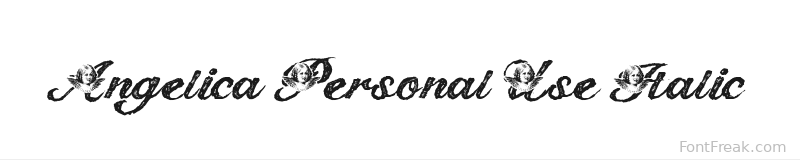
Angelica Personal Use Italic
About Angelica Personal Use Italic
Angelica Personal Use Italic is a beautifully crafted script font by Billy Argel Fonts, designed to add a touch of elegance and whimsy to any project. This font falls into the decorative category, showcasing a distinctive calligraphic style that makes it stand out. With its fluid, flowing strokes, Angelica Personal Use Italic features a moderate contrast in stroke weight, giving it a graceful appearance that is both inviting and sophisticated. The spacing between characters is thoughtfully balanced, ensuring readability while maintaining its artistic flair.
This font is perfect for a variety of creative applications. It shines brightly in wedding invitations, where its romantic curves can evoke a sense of intimacy and love. Additionally, Angelica Personal Use Italic is well-suited for product labels, particularly in the beauty or artisanal sectors, where a personal touch can enhance brand identity. It can also be a charming choice for greeting cards and seasonal promotions, allowing messages to resonate with warmth and emotion. Restaurant menus can benefit from the font's unique style, providing an elegant touch that complements fine dining experiences. Content creators and graphic designers will find it a versatile option for social media graphics and marketing materials, capturing the eye of audiences with its distinctive charm.